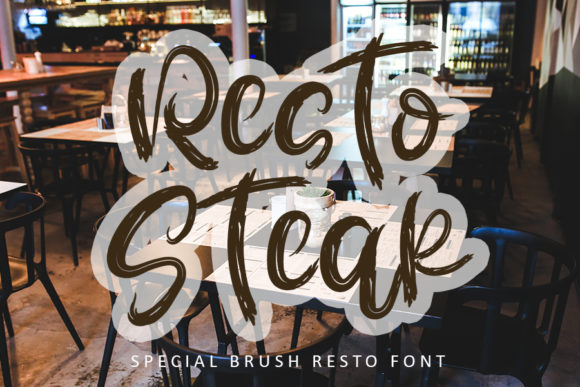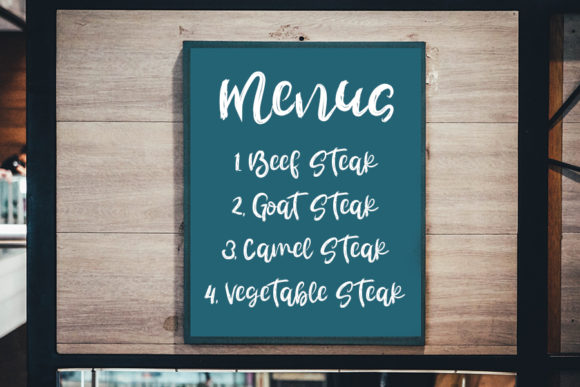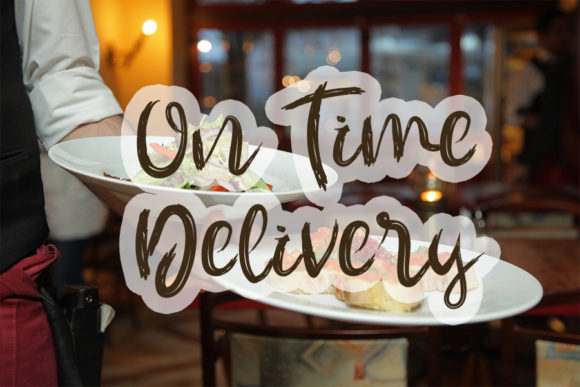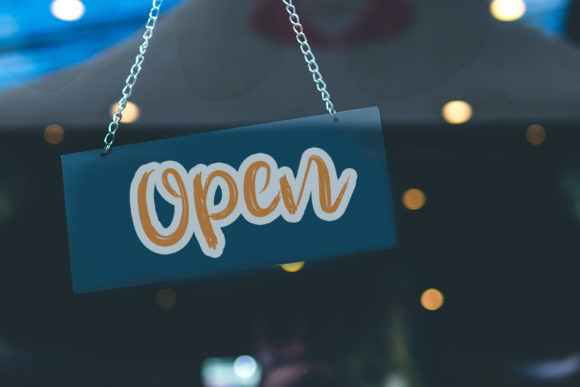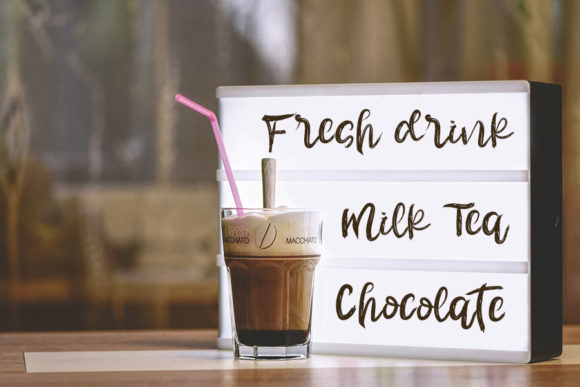
Introduction to Resto Steak Font Font
Fonts play a crucial role in design, and the Resto Steak Font font is a typeface that brings both character and versatility to any project. Whether you’re working on a branding project, a website, or a print design, the Resto Steak Font font offers a unique style that can elevate your work.
Resto Steak is a casual and relaxed handwritten font, created with the help of a brush pen.
Fall in love with its incredibly versatile style and use it to create gorgeous wedding invitations, beautiful stationary art, eye-catching social media posts, and much more .
Key Features of Resto Steak Font Font
Why Choose Resto Steak Font Font?
The Resto Steak Font font is more than just a typeface – it’s a design tool that helps you communicate your message with style and clarity. Its unique character set and versatile design make it suitable for a wide range of applications, from elegant invitations to bold headlines.
With its carefully crafted letterforms and balanced proportions, the Resto Steak Font font ensures readability and visual appeal across all mediums.
What makes Resto Steak Font font special?
The Resto Steak Font font stands out with its unique design, exceptional readability, and versatility across various design applications.